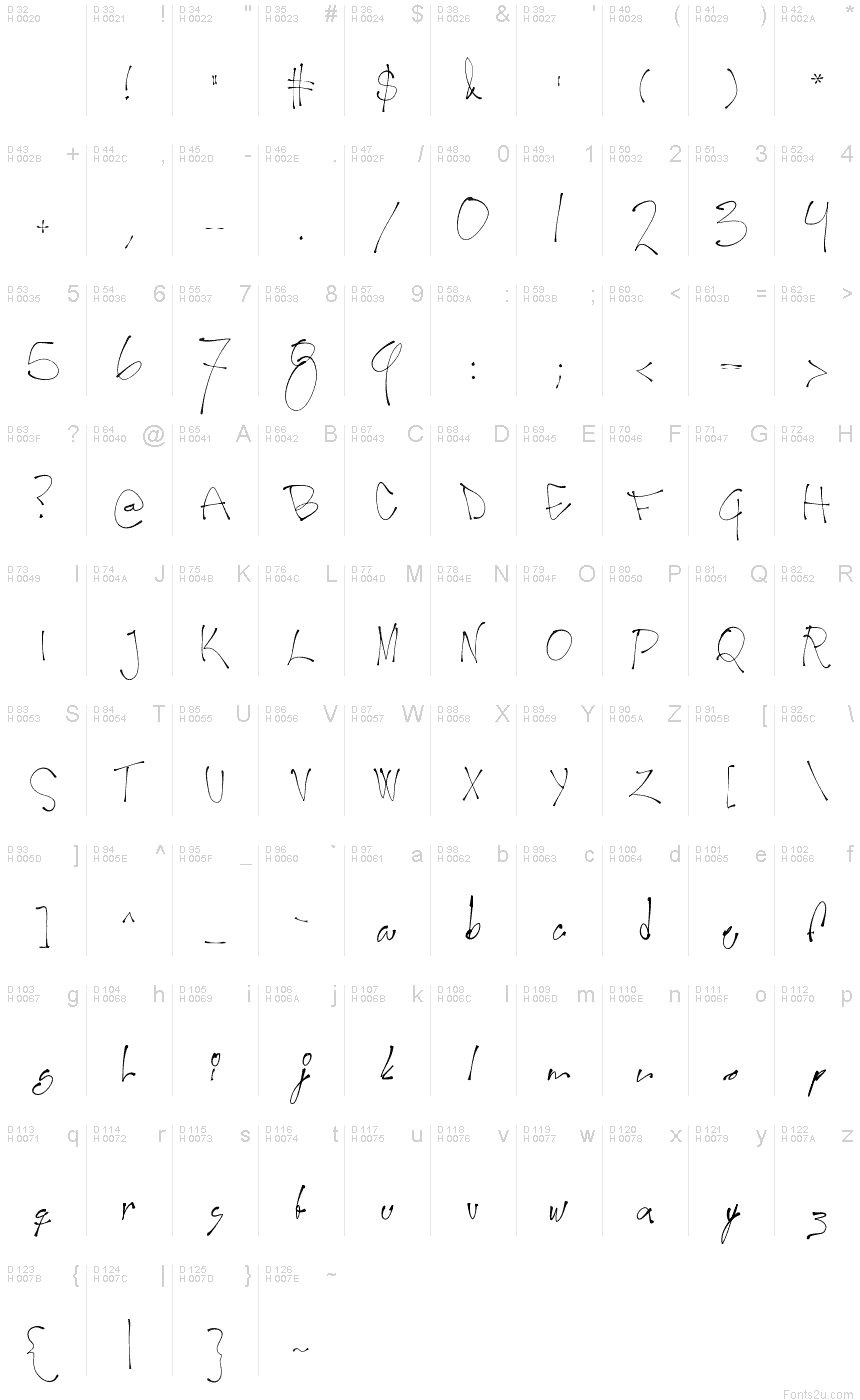
Second Lyrics by Måns Grebäck is a free handwritten font with an unusually tall, loose silhouette, dramatic changes in letter size, and an uneven course across the line. Fine strokes sweep through broad loops, abrupt angles, and long extensions.
An independent fashion label or experimental music act could make this lettering central to logos, packaging, and album artwork when a raw, intimate signature suits the subject and polish is not the point. Its overlapping lines and oversized gestures can become a recurring brand device, echoing loose thread or cable in clothing tags and campaign graphics.